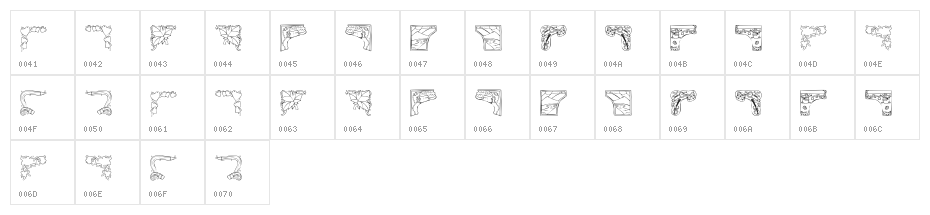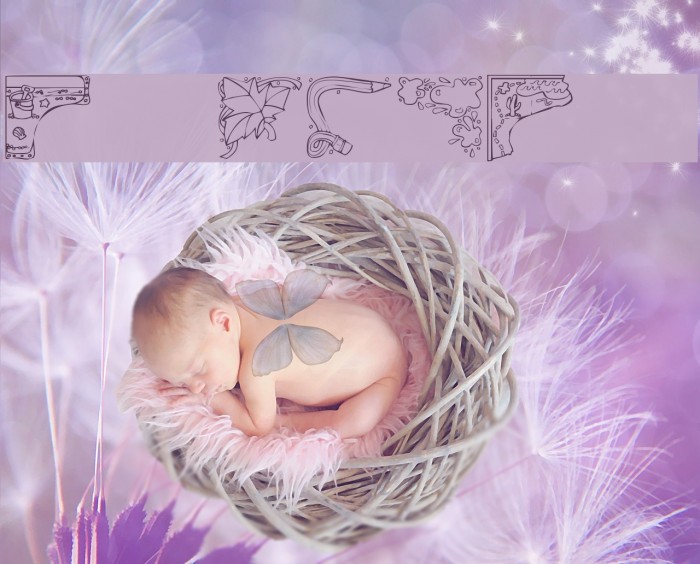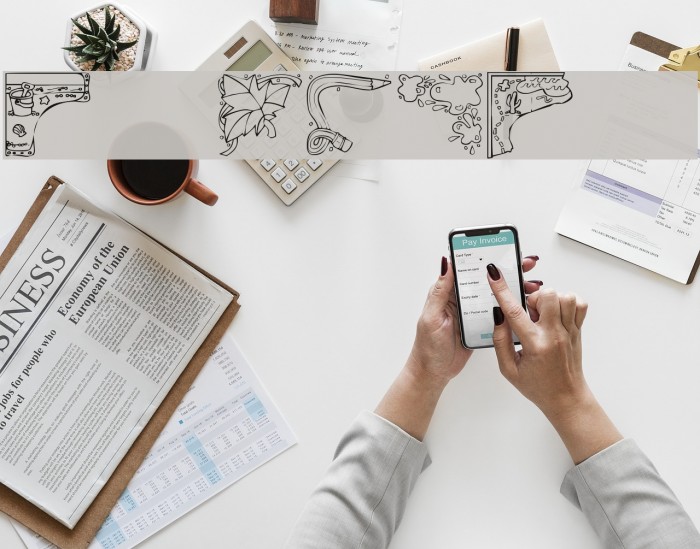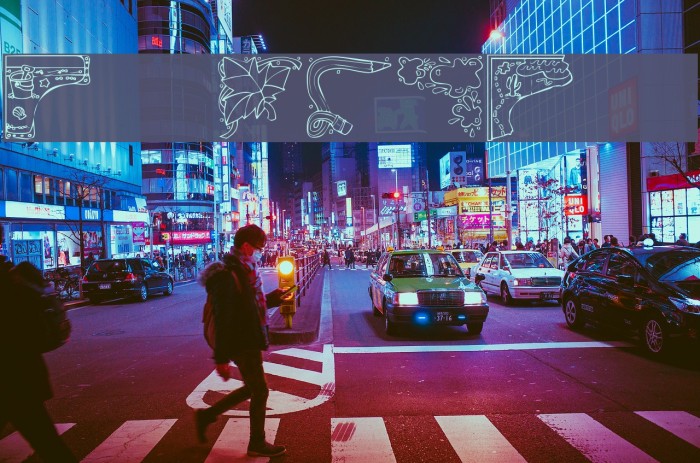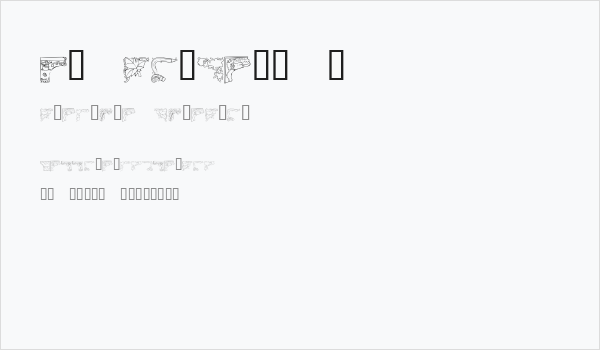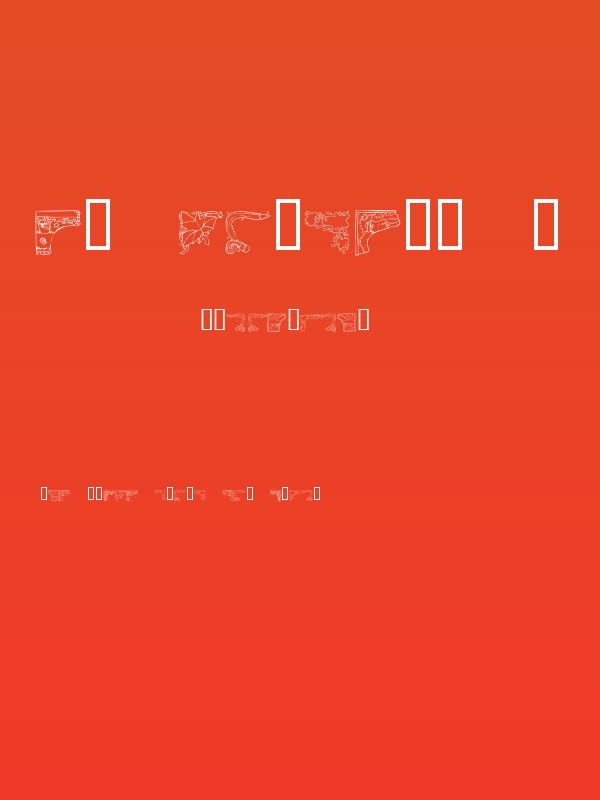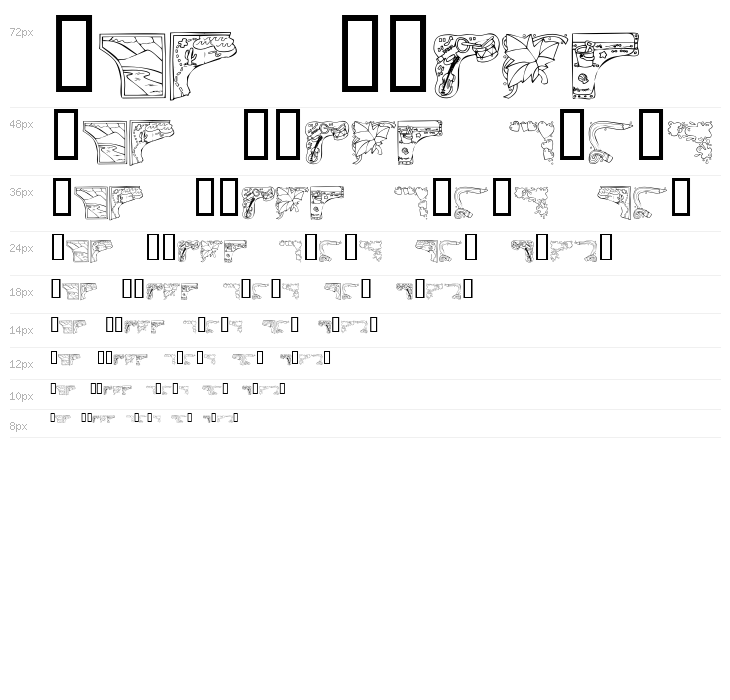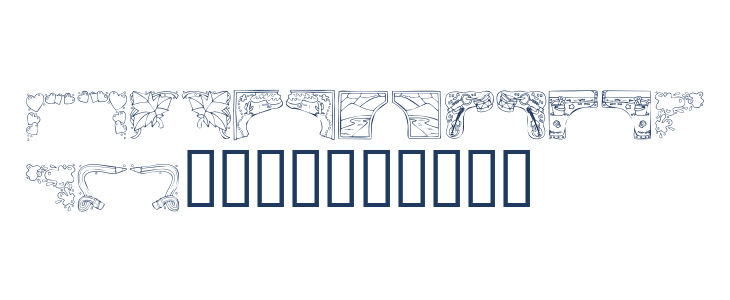
KR Corners 2 Font
KR Corners 2 Description
This is not a valid font. The image appears to contain decorative elements or borders rather than a complete set of typographic characters. The elements are ornate and feature intricate designs, possibly intended for use in graphic design or as embellishments in layouts. They do not represent a standard alphabet or numerical system.
| Use Case | Decorative borders, Graphic design embellishments |
| Proposed Projects | These elements could be used for decorative borders in graphic design projects, invitations, or artistic layouts. |